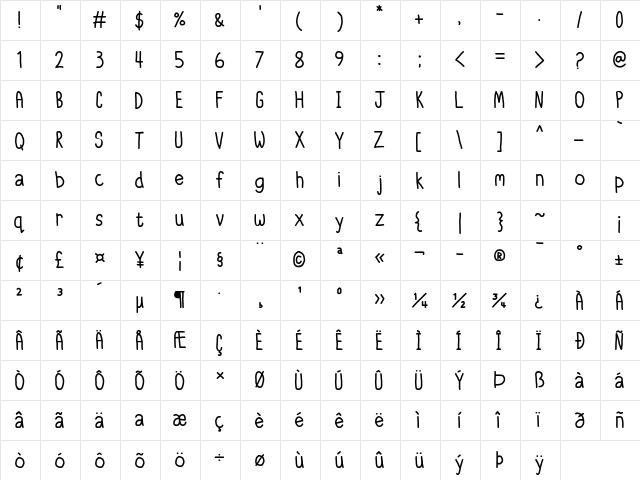
Itty Bitty Notebook Regular
Design Context for Itty Bitty Notebook Typeface
Itty Bitty Notebook takes a measured approach to typography — its balanced proportions and neutral character make it a reliable workhorse for both digital and print work.